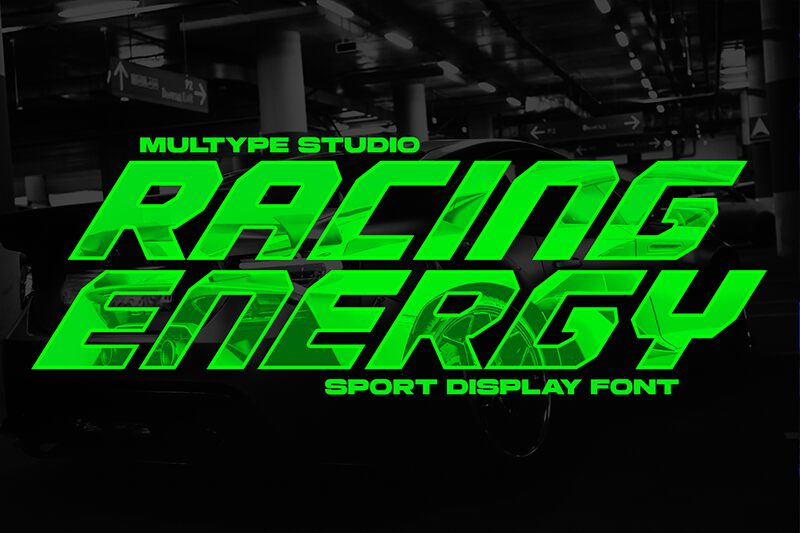
Racing Energy
Racing Energy font is a futuristic display font designed by Multype Studio. With its italic, bold, and angular appearance, the aggressive typeface oozes movement and sporty vibes. Racing Energy’s sharp edges and fluid lines resemble speed lines which subconsciously manifest a feeling of high-impact power. By every means, this excellent free typeface motivated by race cars is ready to join your next projects.
Racing Energy will deliver well in posters, magazines’ titles or covers, logo designs for enterprises or sports teams/clubs, branding designs in general (especially those related to automobiles), social media visuals (banners/posts), product packaging labels, board games’ cards/titles/typefaces etc.